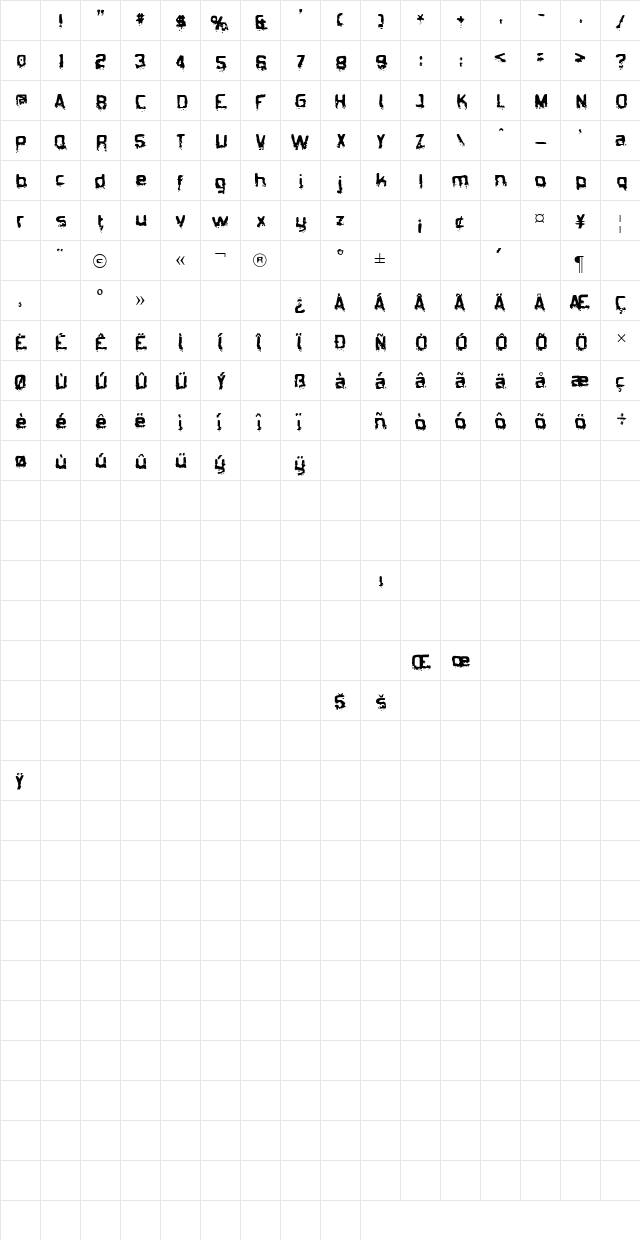
Complete Biometric Joe Regular glyph index. Displaying only characters natively supported by Biometric Joe Regular font.
Biometric Joe is a composed and adaptable typeface that performs quietly and consistently across a wide range of design contexts.